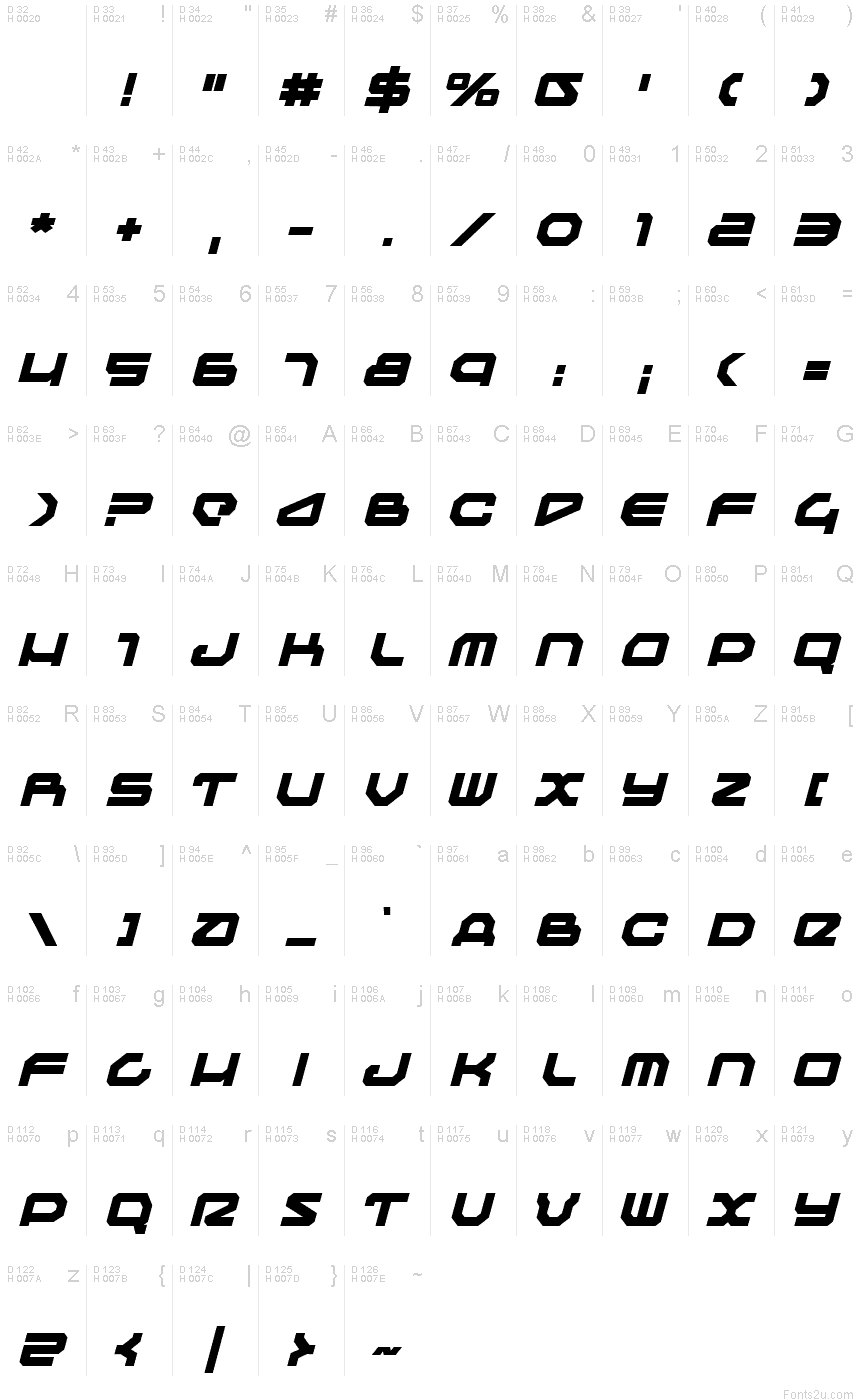
Traveler Bold Italic by Daniel Zadorozny of Iconian Fonts is a free futuristic display font built from broad, forward-leaning letters with sharply cut corners and deep geometric breaks. Its uneven stroke shapes give the lettering a machined edge.
Speed, competition, and speculative technology are convincing themes for this aggressive design, making it useful for racing game graphics, esports branding, and science-fiction posters. The slanted silhouette and repeated wedge-like cuts can also shape merchandise for motorsport teams or electronic music events, especially when the lettering needs to echo vehicle panels, armor, or industrial hardware.